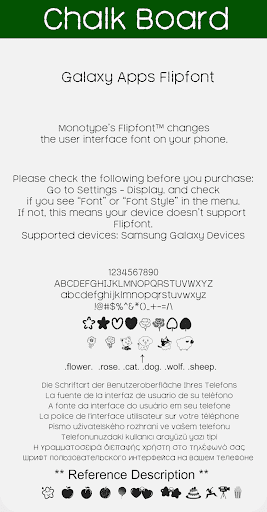
BRChalkBoard™ Latin Flipfont
It's a typeface that feels written in chalk.
This font has some feature.
1 .flower. .rose. .cat.. .dog. wolf. sheep. ,heart, ,star, ,boy, ,girl, ,club, ,phone, ,finger, ==> Convert to Icon
2 .^^. .\/. .**. .Apple. .apple. .peach. .Peach. .pear. .Pear. .balloon. .Balloon.
.heart. .Heart. .star. .Star. .cake. .Cake. .dance. .Dance.
.car. .Car. .train. .Train. .movie. .camera. .pocorn.